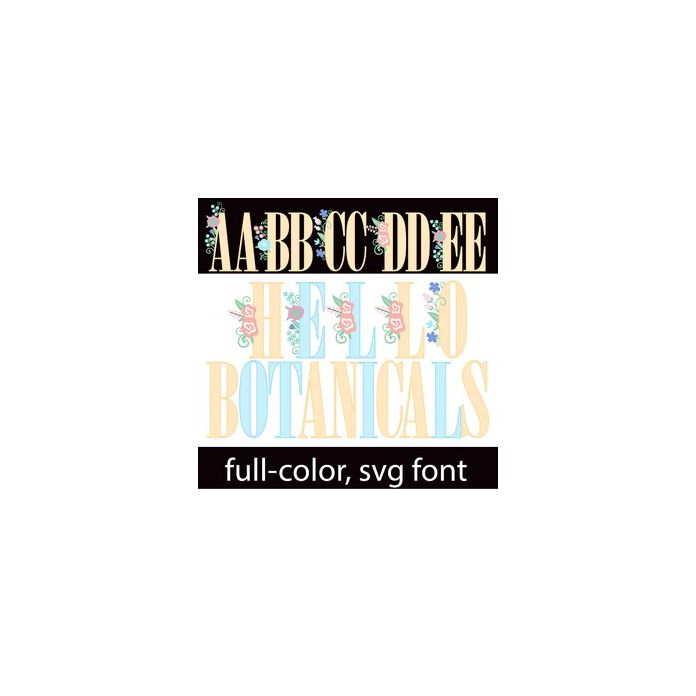
Hello Botanicals Color Font
This pretty serif font features florals on the uppercase. There is an alt case w/ additional colors you can access through your system or Silhouette's glyph map. This font works best for titles, displays, posters and more. Please note color fonts will show as black in non compatible programs. This font type is compatible with Silhouette Studio.